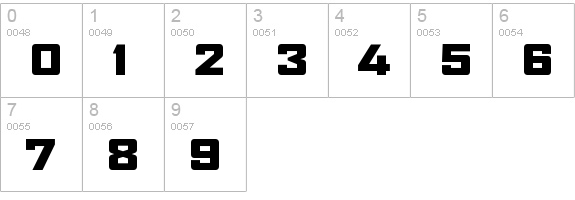
AgencyFB-BlackWide is a powerful and bold font that exudes confidence and modernity. Its wide proportions make a statement, perfect for headlines, logos, and other high-impact design projects. The clean lines and sharp edges of this font give it a professional and sleek look, making it a versatile choice for a variety of applications. What's even better is that AgencyFB-BlackWide is available for free download at FontsMarket.com. This means that you can easily access this impressive font without any cost, allowing you to elevate your designs without breaking the bank. Whether you're a professional designer looking for a new tool in your arsenal or a hobbyist looking to enhance your creative projects, AgencyFB-BlackWide is a fantastic choice that won't disappoint. Download it today and see the impact it can make on your next design project.